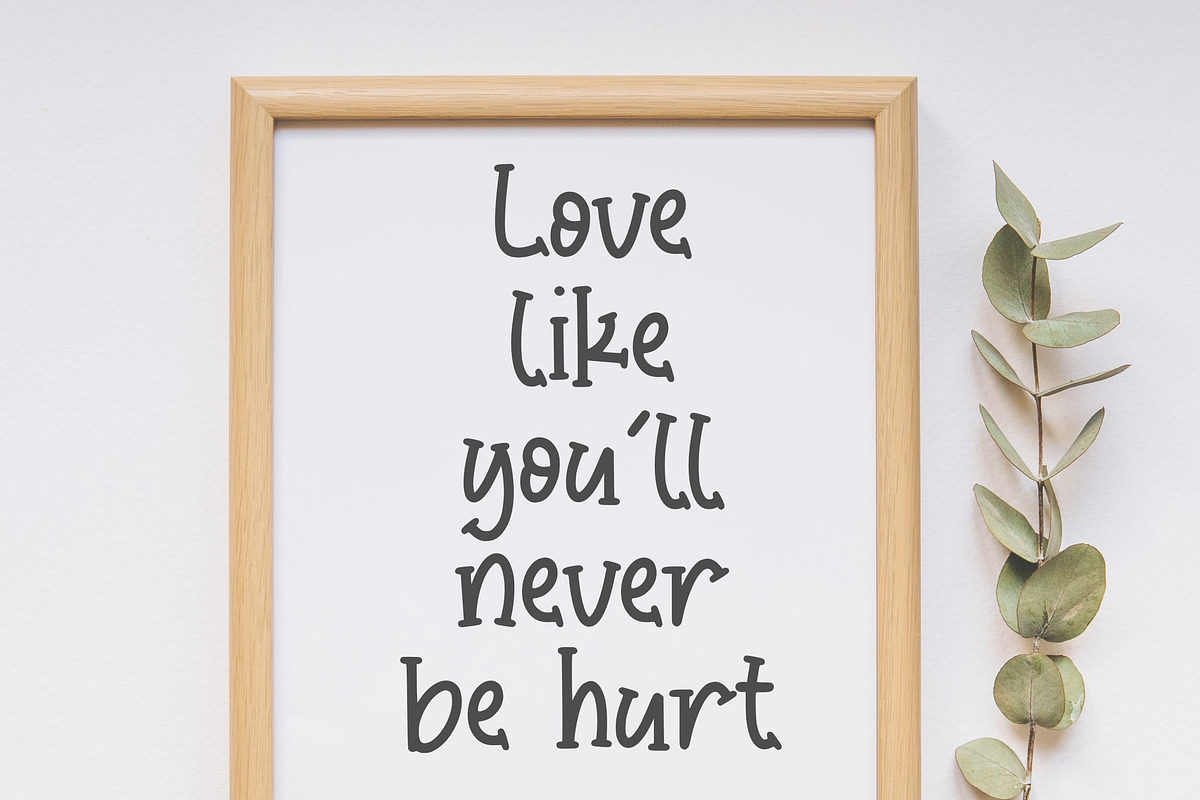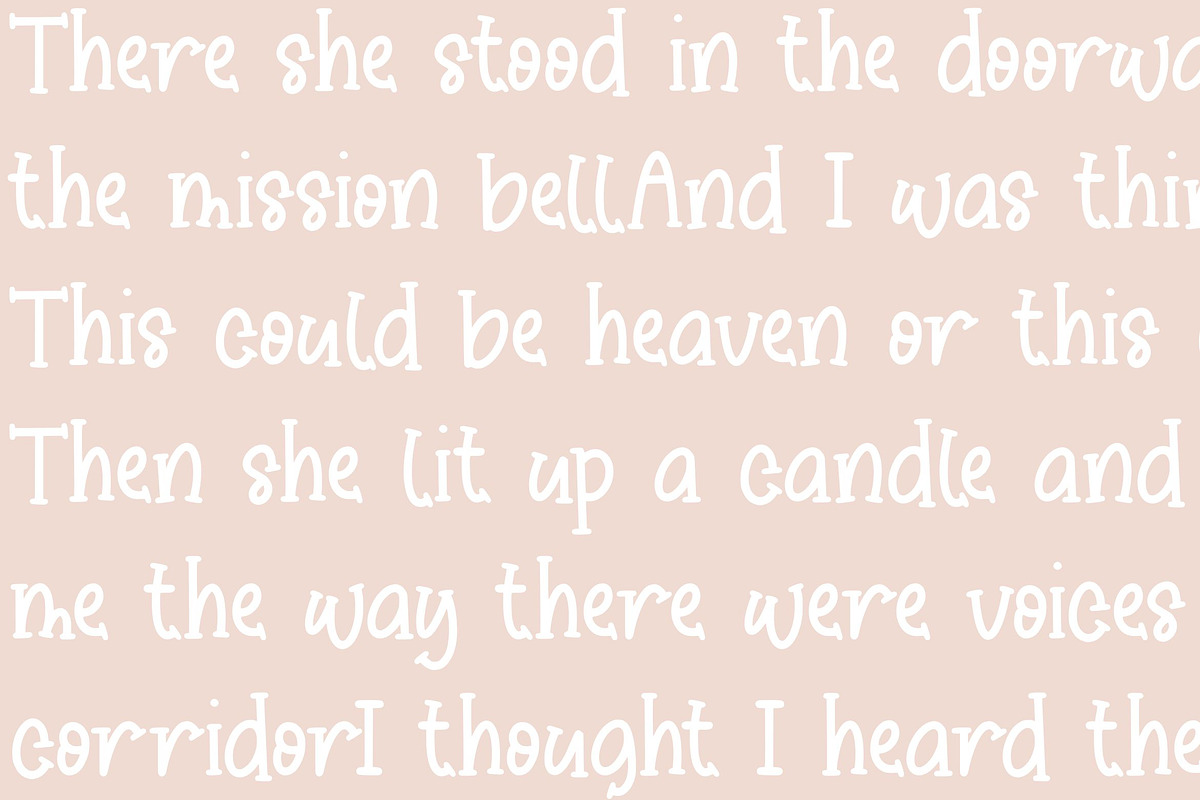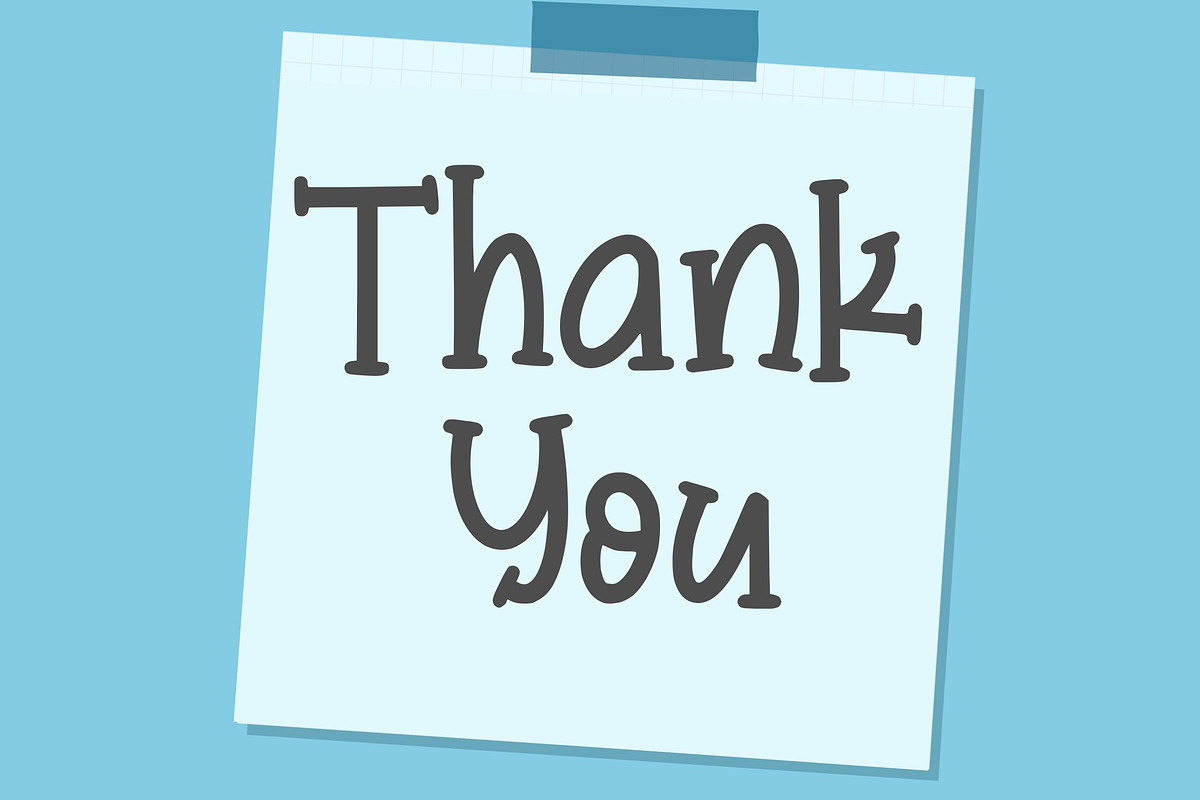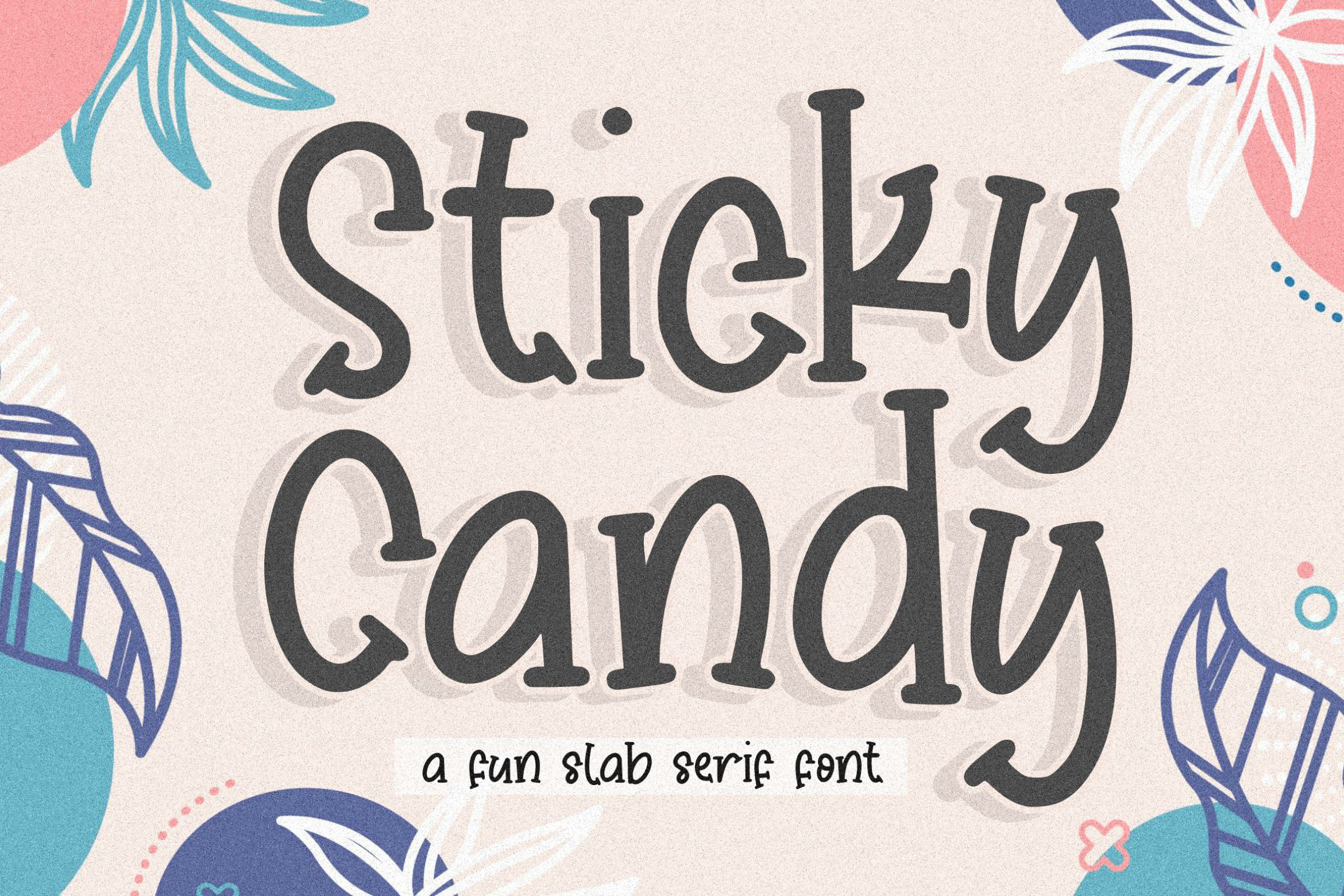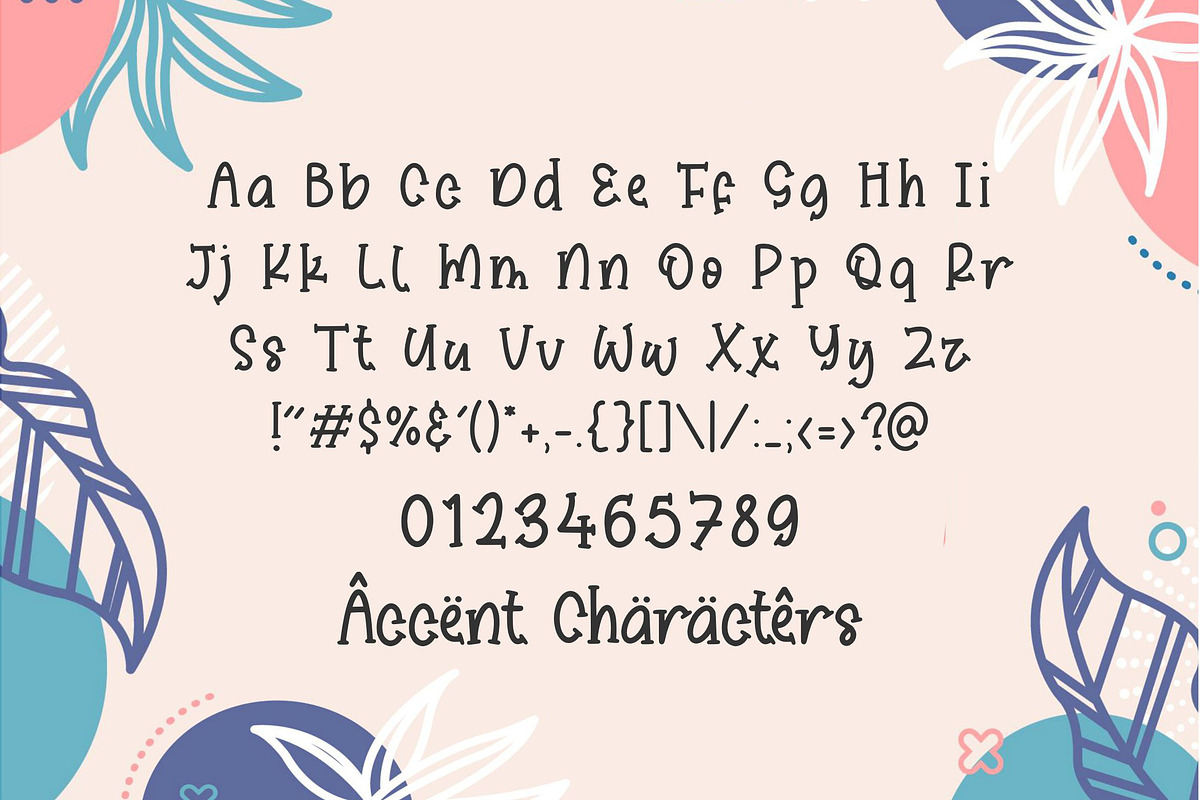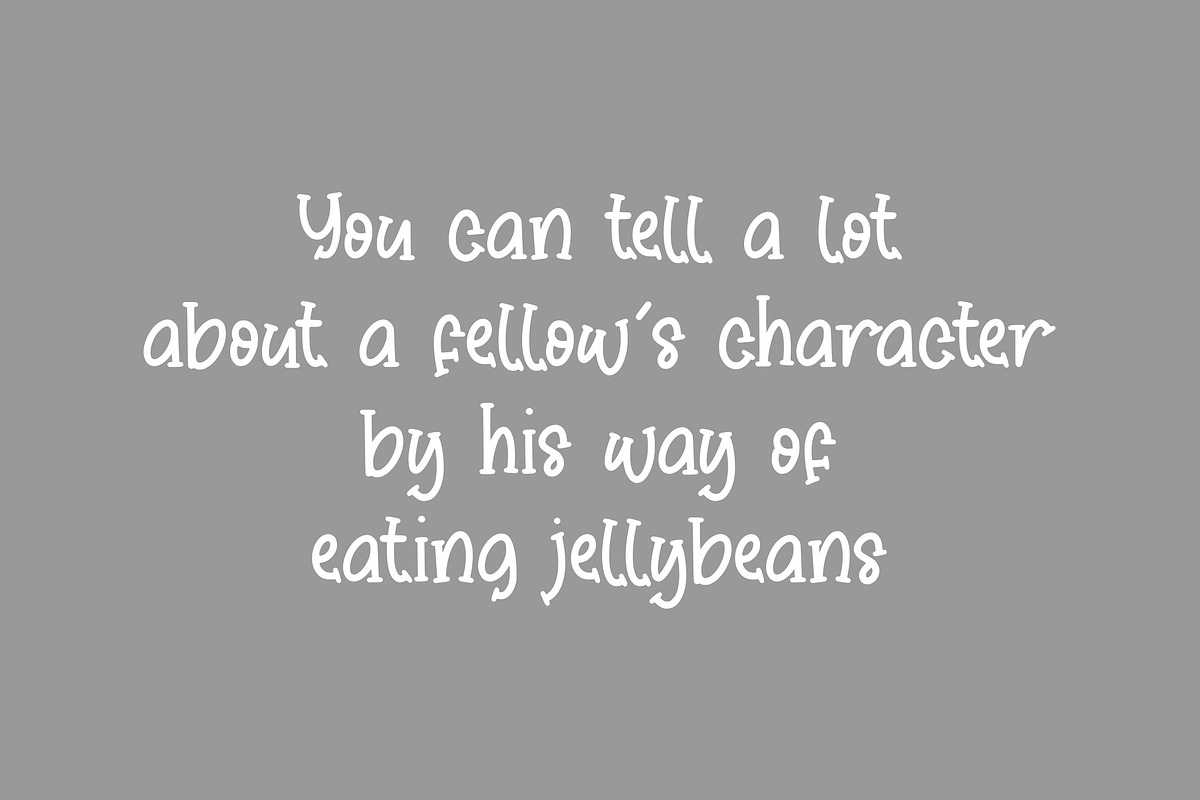
Sticky Candy - Fun Slab Serif Font
Proudly Present, Sticky Candy Font
Sticky Candy is a quirky and neat slab serif font. It can easily be matched to an incredibly large set of projects, so add it to your creative ideas and notice how it makes them stand out!